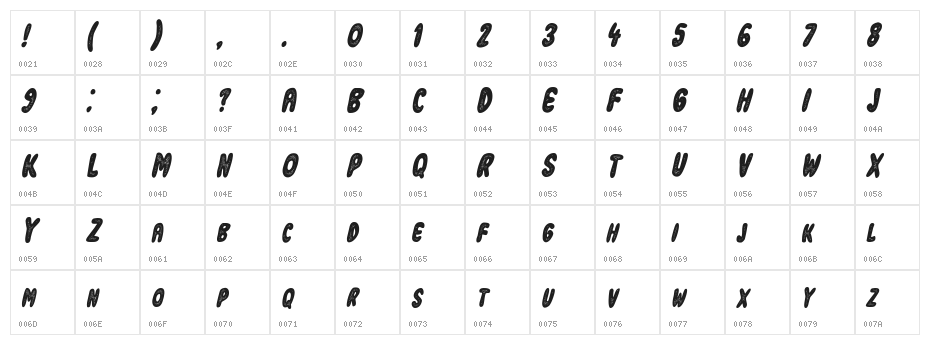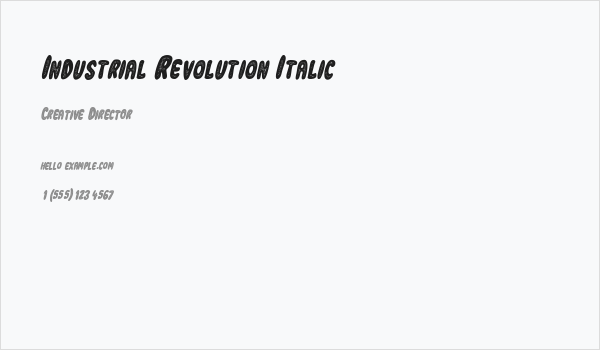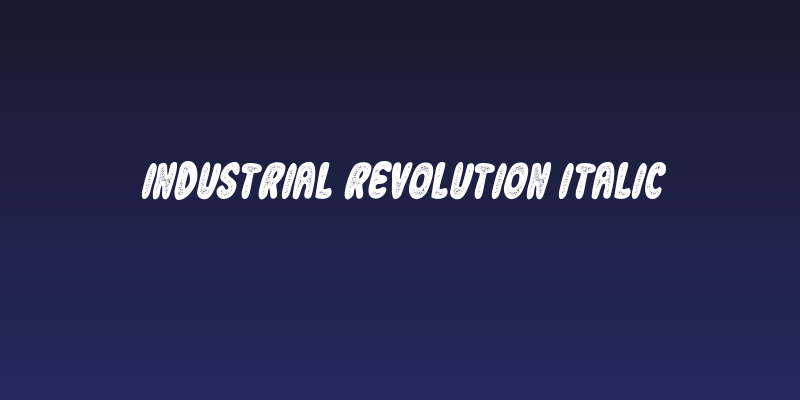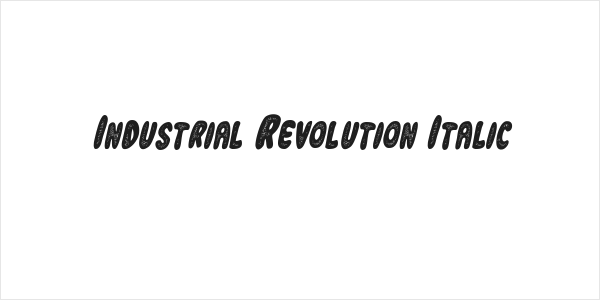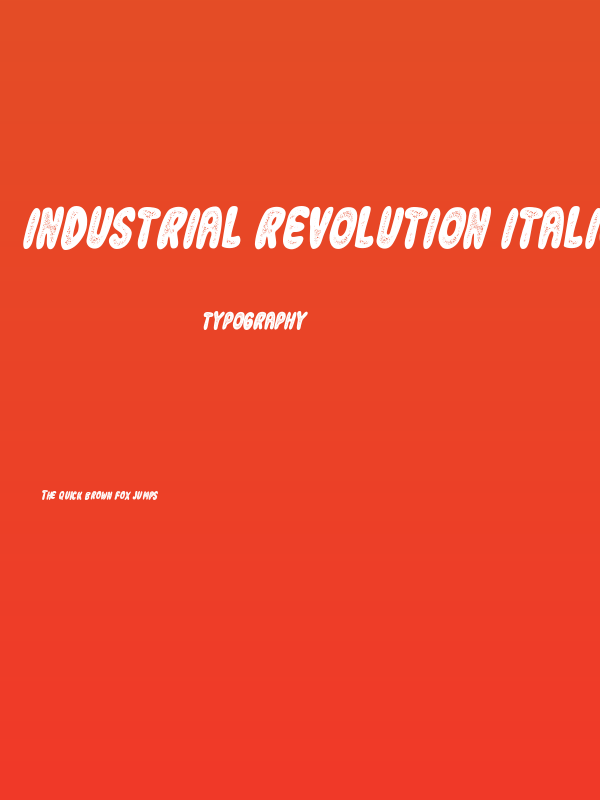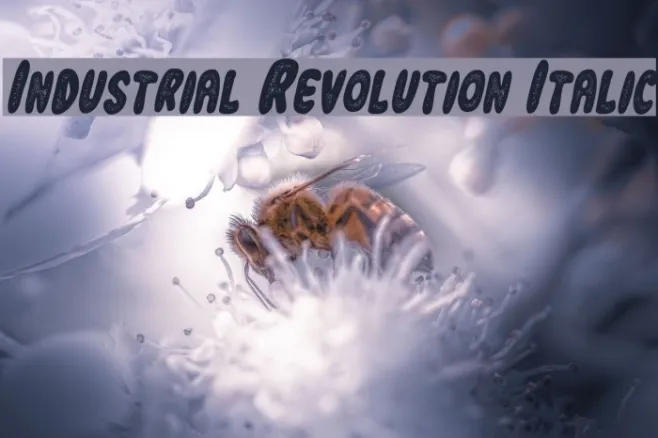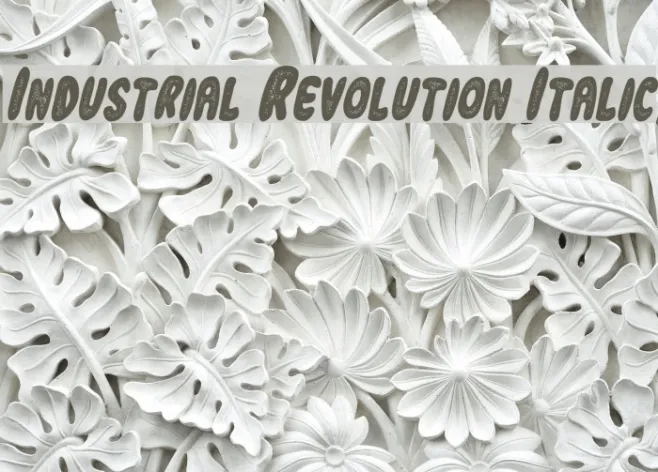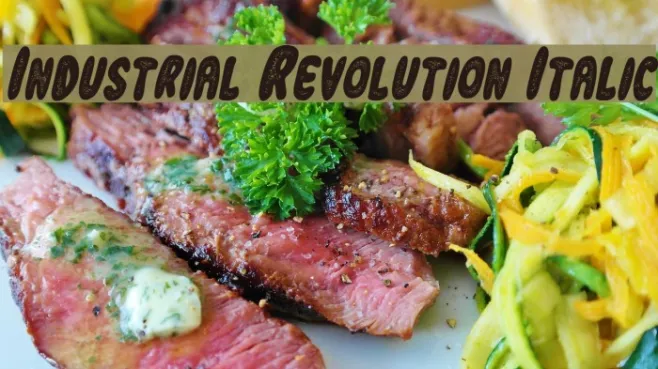
Industrial Revolution Italic Font
Industrial Revolution Italic Description
This font features a bold and dynamic style with a distressed texture that gives it a vintage, industrial feel. The letters are italicized, adding a sense of movement and energy. The uppercase and lowercase characters maintain a consistent weight, contributing to a cohesive appearance. The numbers and special characters are designed with the same boldness and texture, ensuring uniformity across all elements. The font's unique texture and style make it stand out, ideal for projects that require a strong visual impact.
| Overall Style | Vintage |
| Use Case | Logos, Headlines, Posters |
| Proposed Projects | Ideal for branding, posters, and designs that require a vintage or industrial aesthetic. |